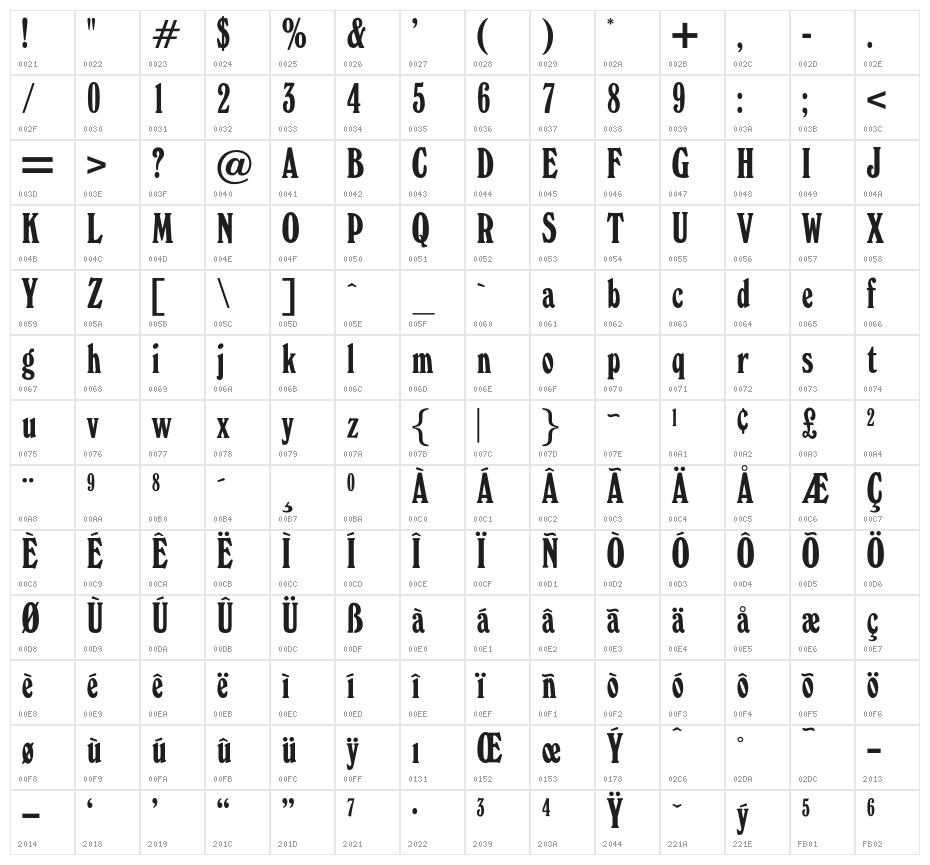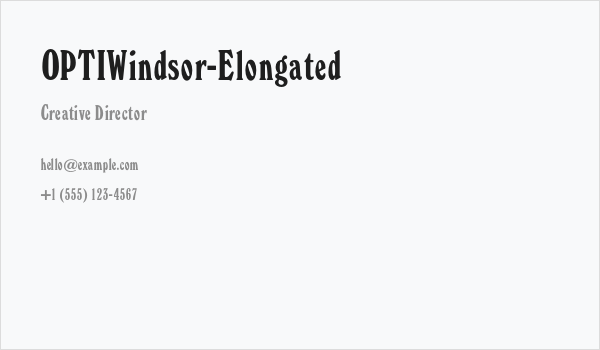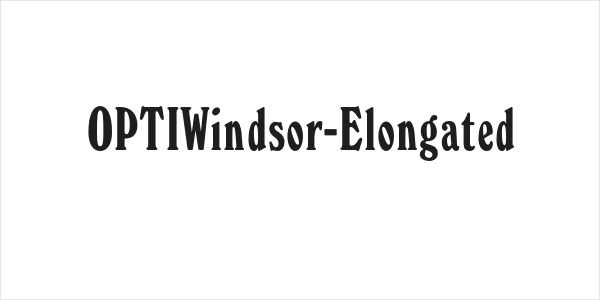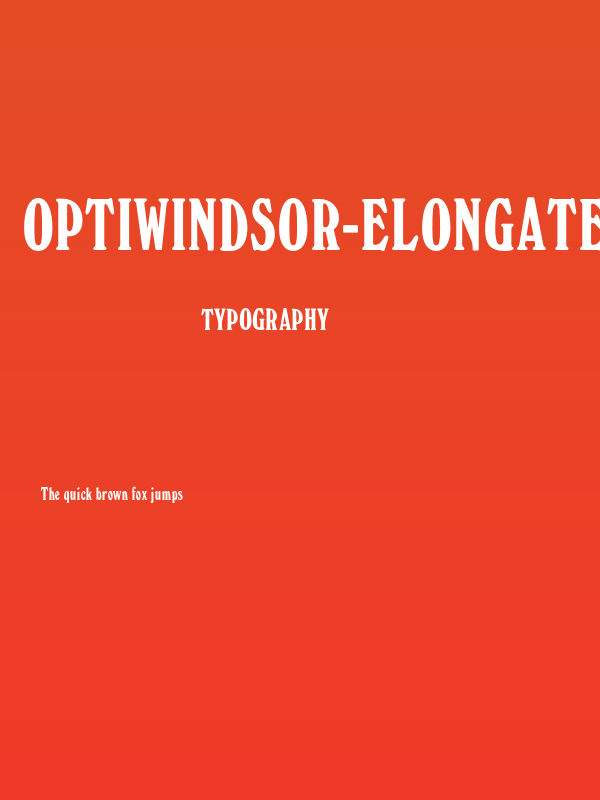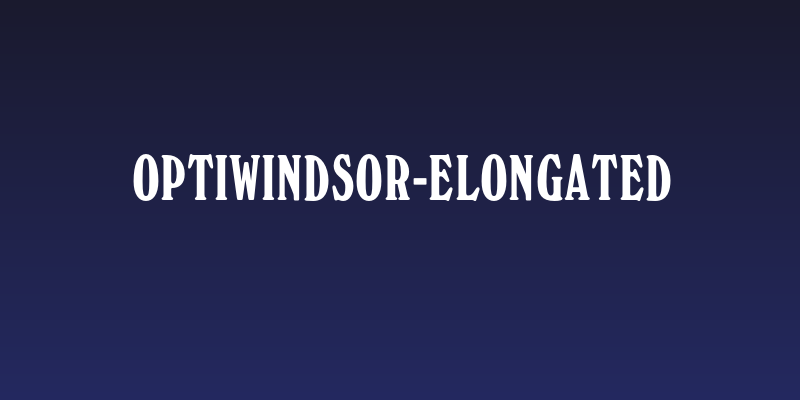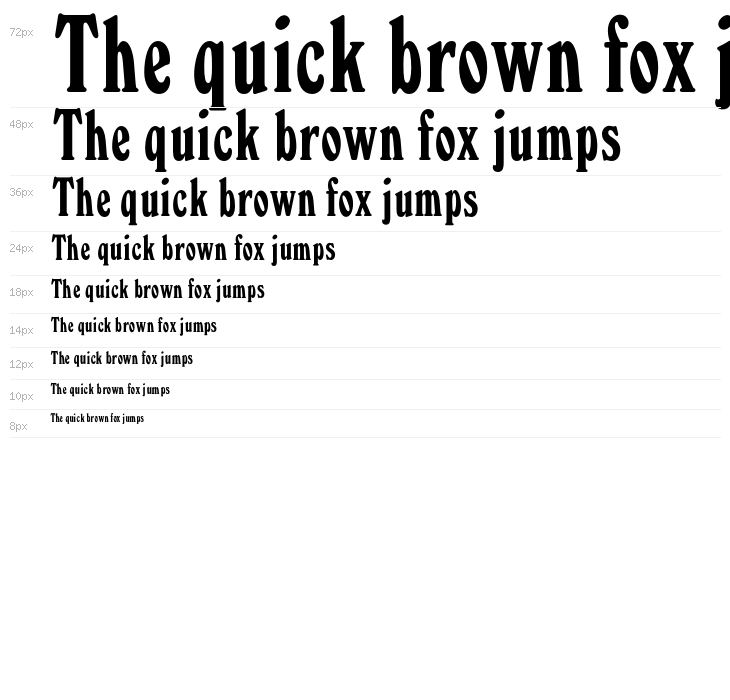
OPTIWindsor-Elongated Font
OPTIWindsor-Elongated Description
This font features a bold and elongated design with a distinct vintage flair. The uppercase letters are tall and narrow, giving a sense of elegance and sophistication. The lowercase letters maintain a consistent style, complementing the uppercase with their slightly condensed form. Numbers and special characters are crafted with the same attention to detail, ensuring a cohesive look across all text elements. The font's unique style makes it stand out, with its high contrast between thick and thin strokes adding to its visual appeal. This font is ideal for projects that require a touch of classic charm and boldness.
| Proposed Projects | Ideal for vintage-themed posters, book covers, branding, and logos that require a classic yet bold appearance. |